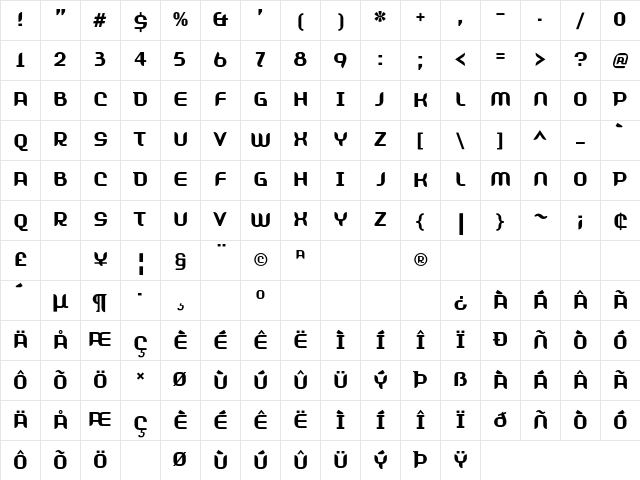
Shifty Regular Free Font
Shifty Regular
Complete Shifty Regular glyph index. Displaying only characters natively supported by Shifty Regular font.
Design Context for Shifty
Shifty is a composed and adaptable typeface that performs quietly and consistently across a wide range of design contexts.